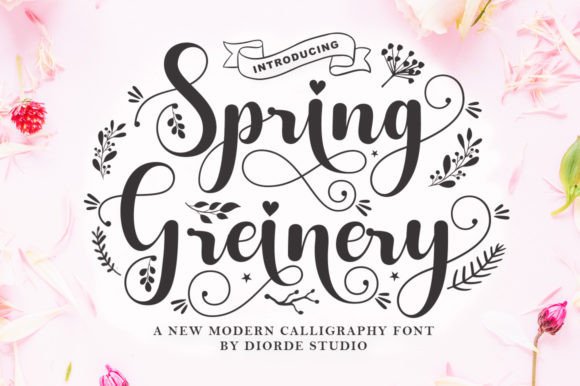
Embark on a typographic odyssey with Spring Greinery, a script font of unparalleled beauty and elegance. Diorde Studio, the creative minds behind this masterpiece, have meticulously crafted each letterform to exude sophistication and charm. Spring Greinery's graceful curves and delicate details are a testament to the art of digital calligraphy.
Unleash your creativity and let Spring Greinery guide you through a world of visual enchantment. With its inherent versatility, this font seamlessly adapts to a myriad of design projects, from enchanting logos and branding elements to captivating invitations and heartfelt greeting cards. Spring Greinery's inherent charm adds a touch of timeless elegance to any composition, transforming the ordinary into the extraordinary.
Immerse yourself in a symphony of letterforms that dance across the screen, evoking emotions and captivating hearts. Spring Greinery's romantic aura infuses your designs with a sense of warmth and intimacy, making them irresistible to the eyes and soul. Let your imagination soar as you explore the endless possibilities that await with this remarkable font.